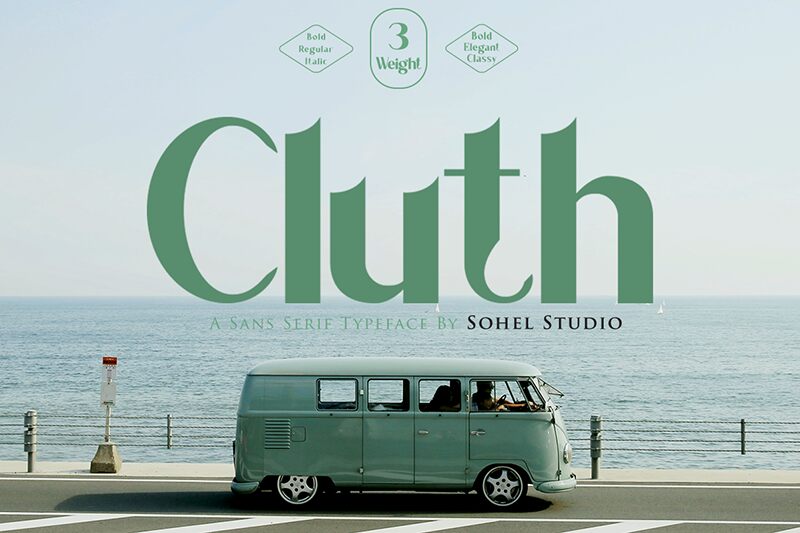
Cluth font is created by Sohel Studio as a free serif font of an interesting type. This font brings with it elegance, humane touch, and simplicity; which can be noticed in the exquisite forms of the letters. Each character carries thick to thin transition in its strokes and straight diagonal-hooked terminals that complete their look.
Use Cluth on your business cards, stationery design projects, typography posters, developments for magazines and newspapers (headlines), book covers, smartphone app designs, game interfaces, print on demand products like t-shirts and mugs; diaries and pocket agendas.